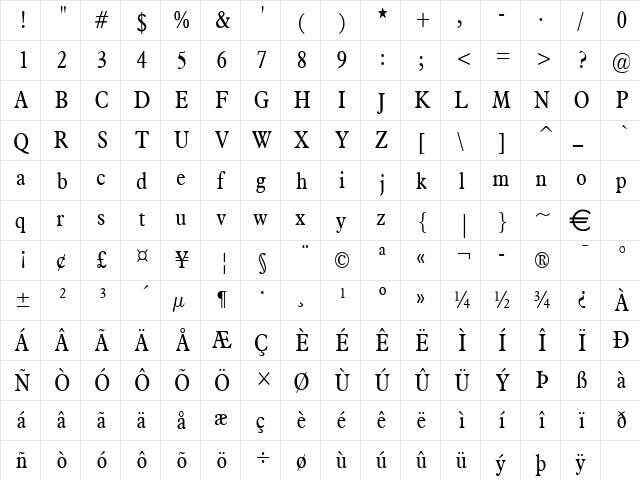
NadineCondensed Normal
Design Context for NadineCondensed Typeface
NadineCondensed takes a measured approach to typography — its balanced proportions and neutral character make it a reliable workhorse for both digital and print work. The condensed width makes it efficient for tight spaces without sacrificing legibility.